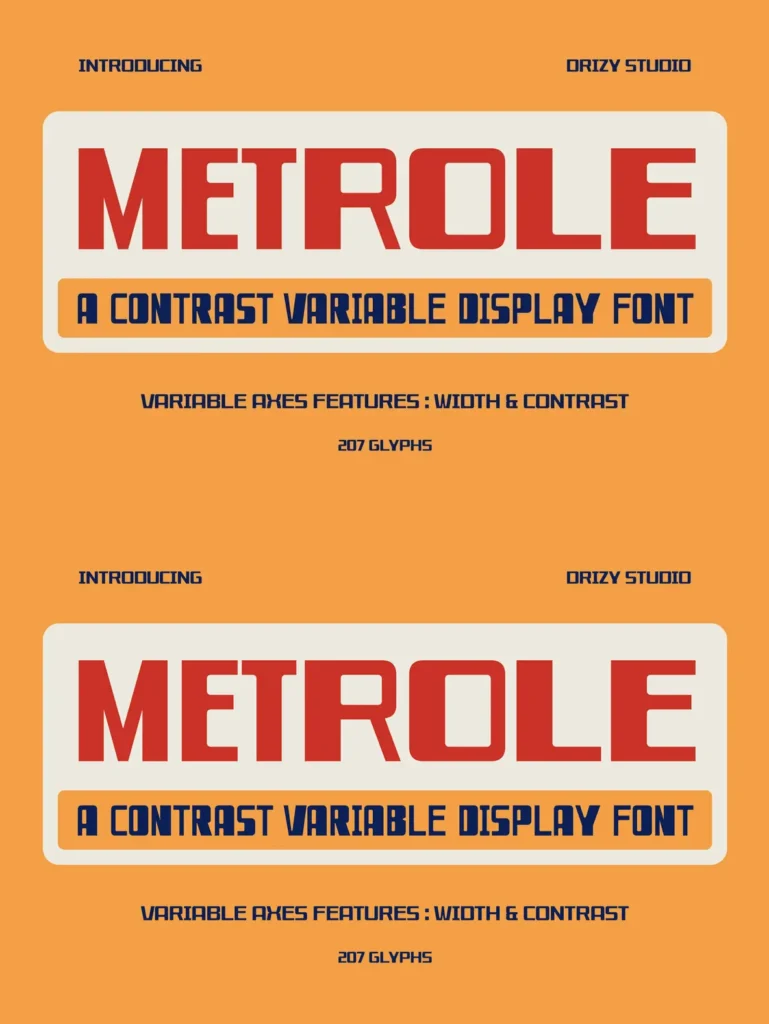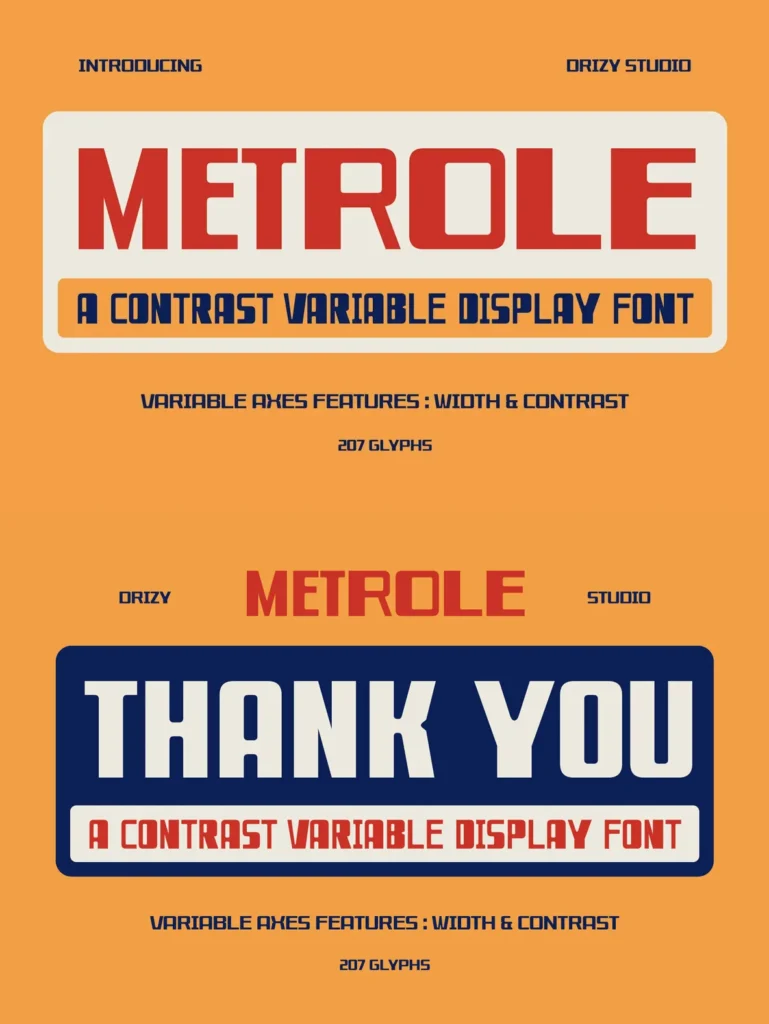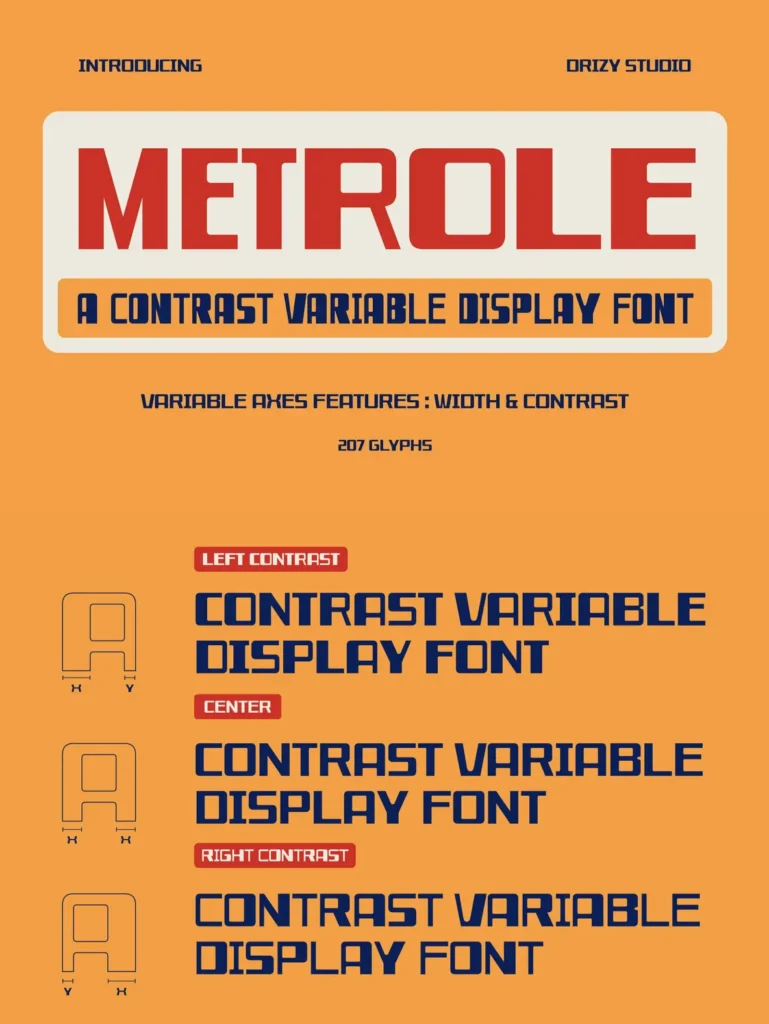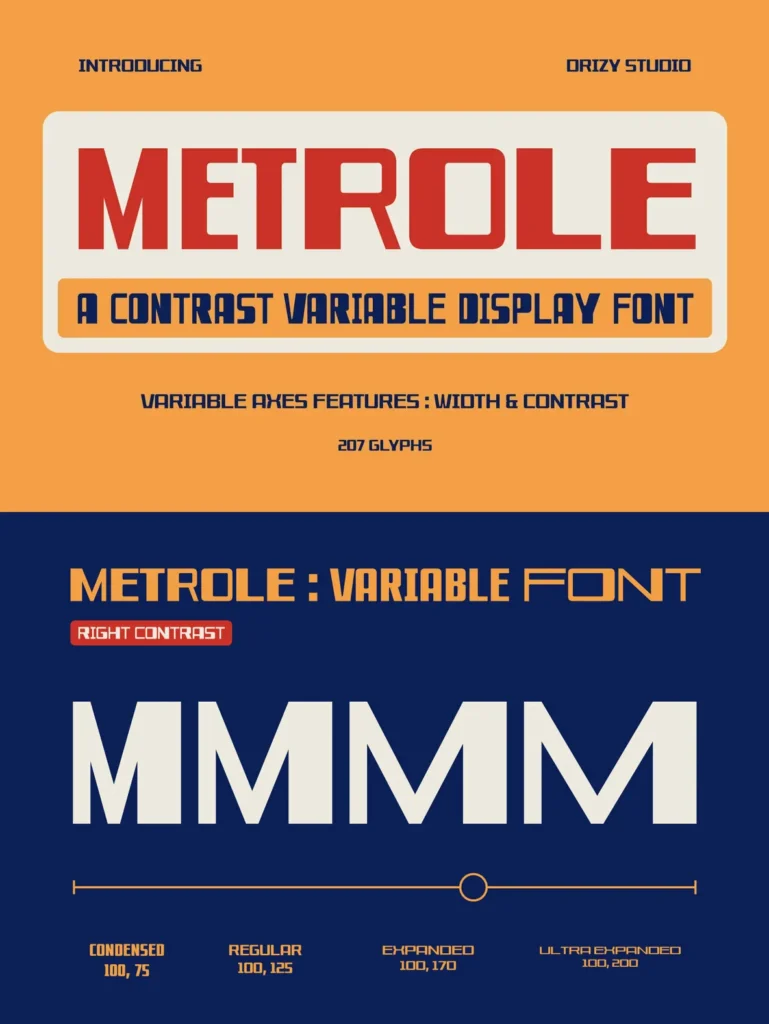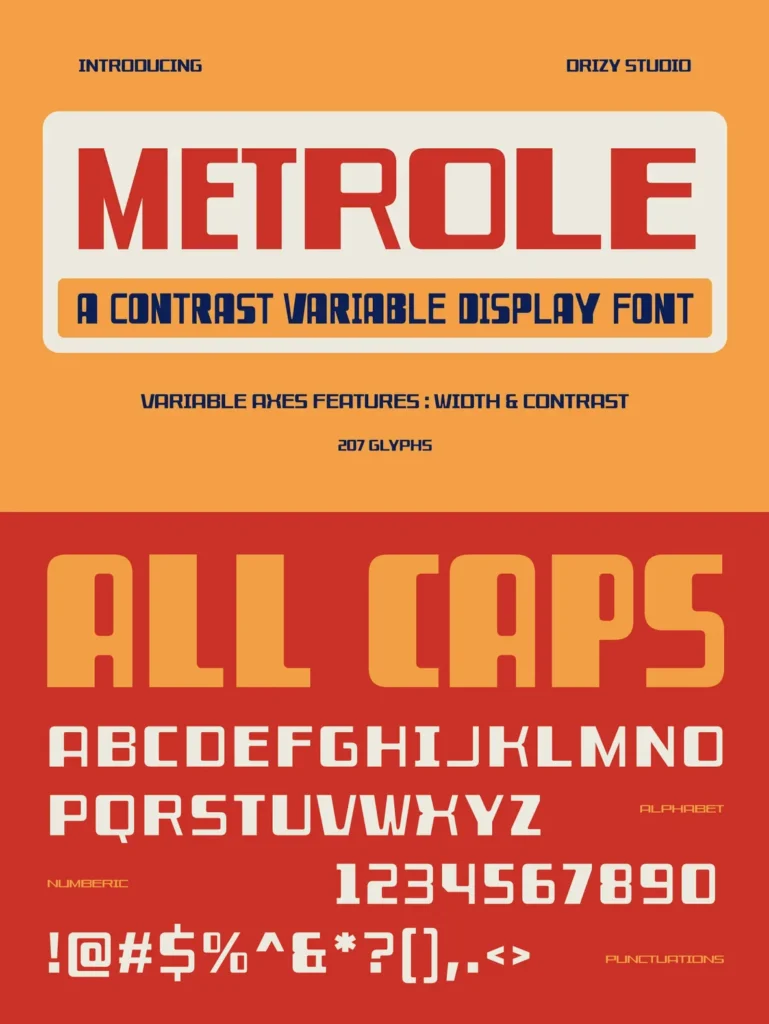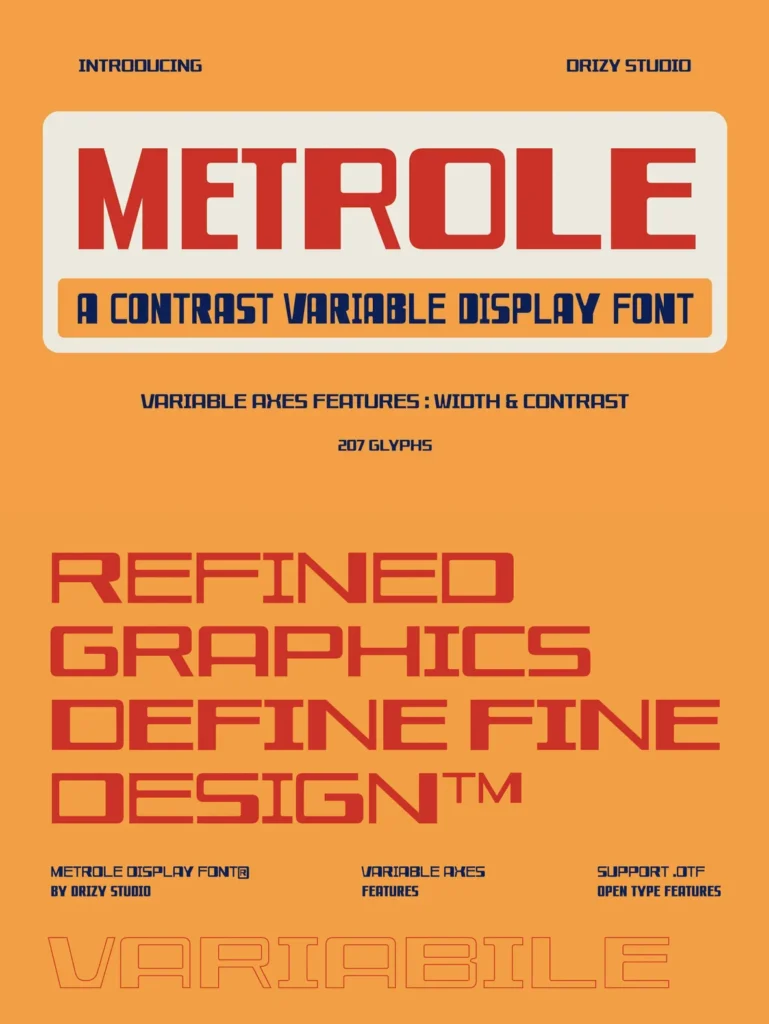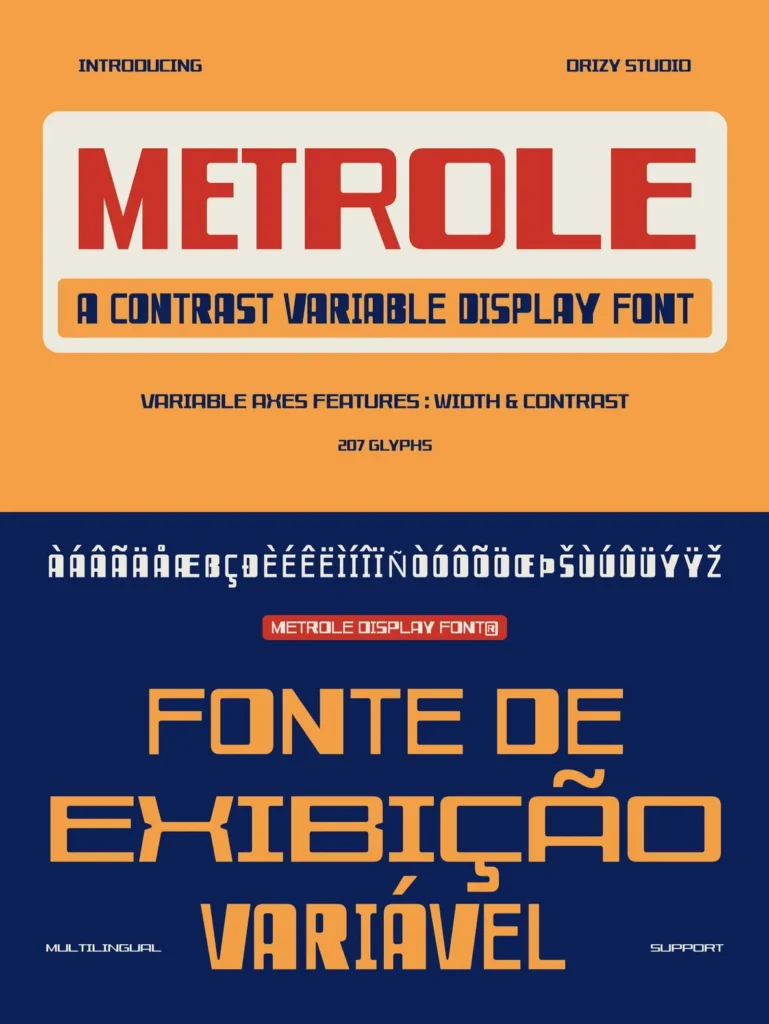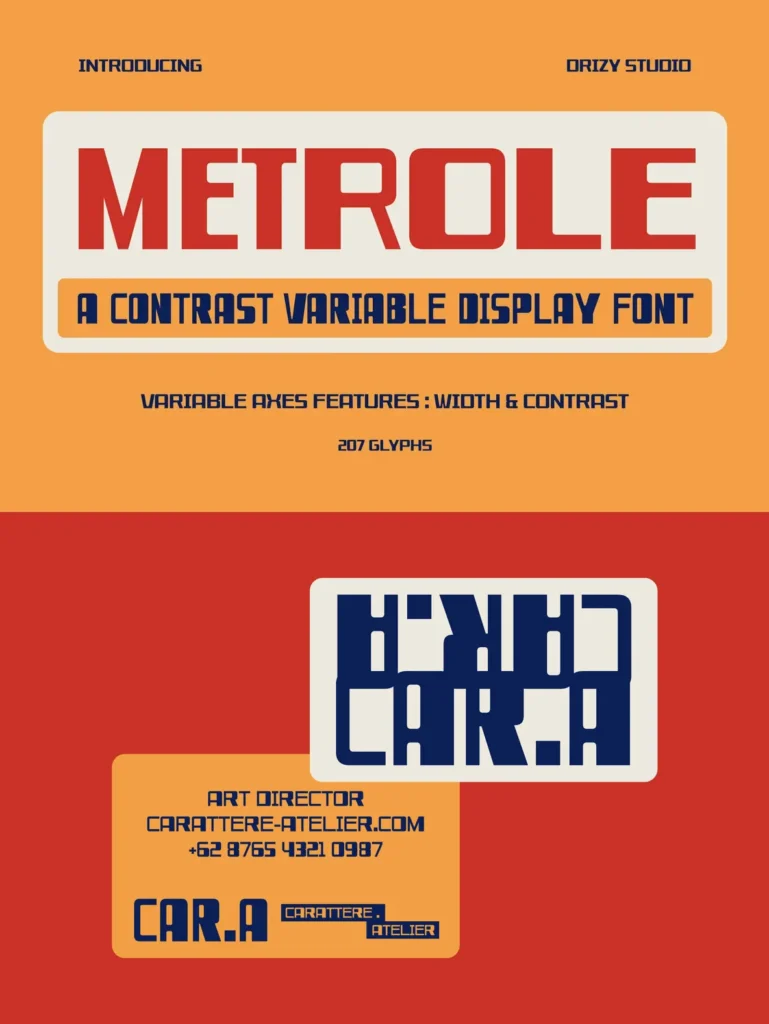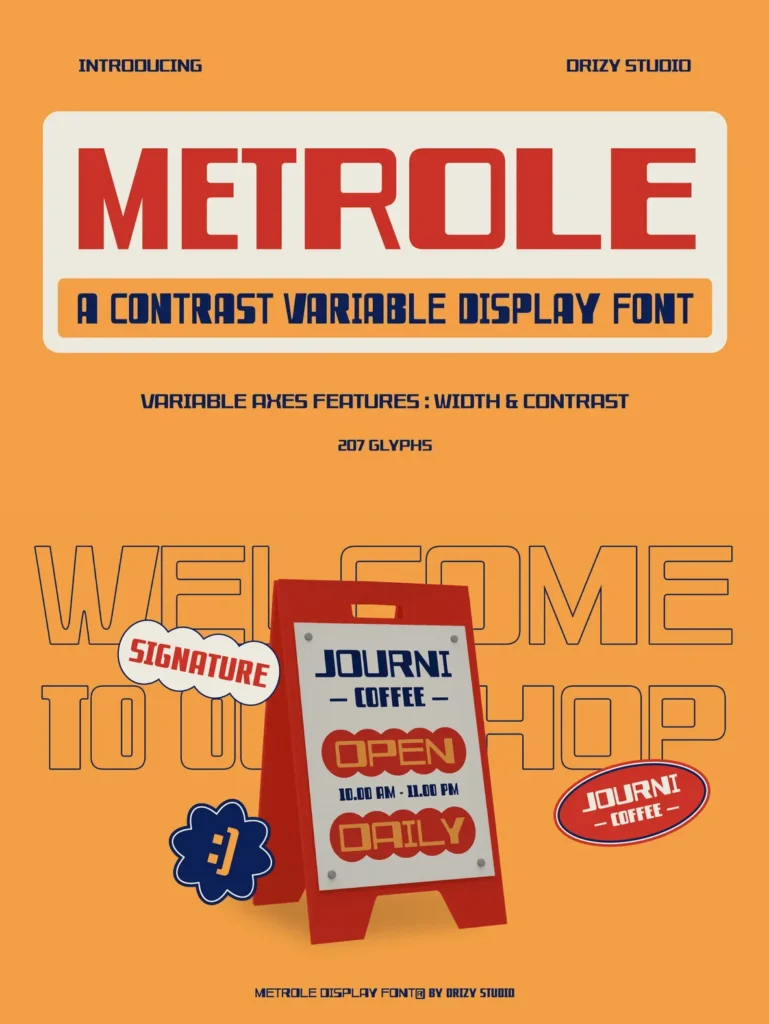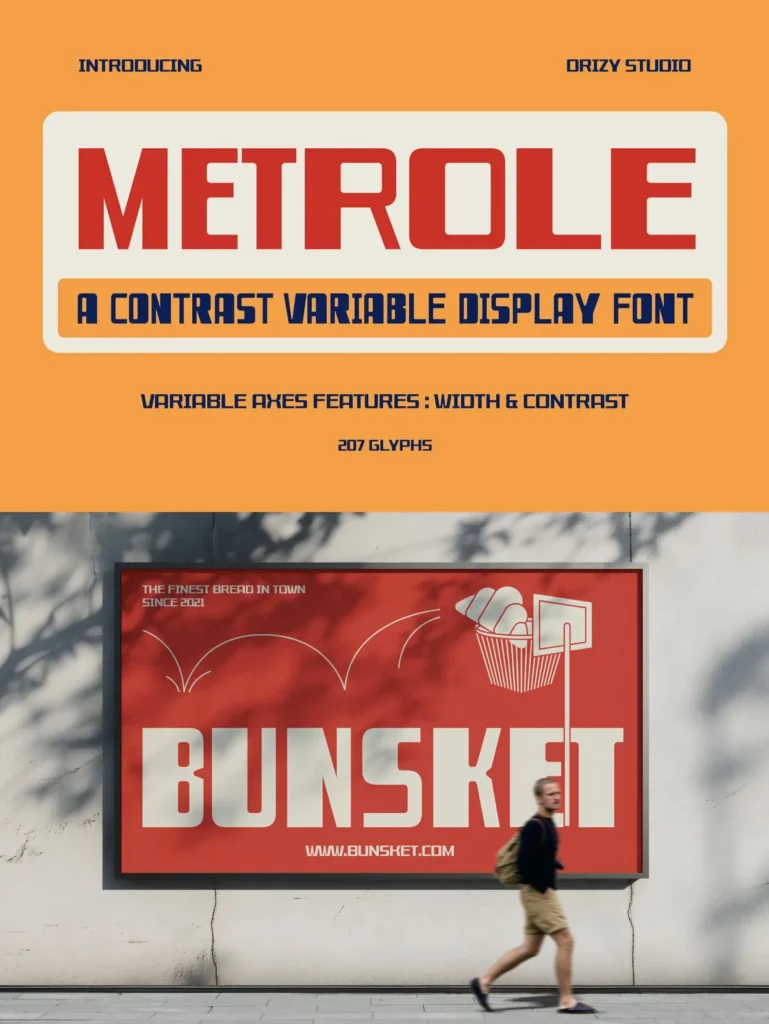
Metrole – Contrast with Poise
Metrole – Contrast Variable Display is a striking fusion of modern elegance and clean simplicity. As part of the Modern Clean Sans Serif style, this display font brings a sleek, contemporary voice to high-impact typography. Its high-contrast aesthetic gives headlines and visual statements a refined sense of sophistication.
Designed for an eye-catching statement or a restrained minimalist touch, Metrole balances clarity with a stylish edge. The variable width and contrast options give designers flexible control while keeping the typeface clean, polished, and direct. It is a strong choice for display settings where modern sans serif structure and expressive contrast need to work together with confidence.
Metrole – Contrast Variable Display Font Features
Character Set (All Caps)
Punctuation & Numbers
Multilingual
Variable: Center, Center Condensed, Center Expanded, Center Ultra Expanded, Condensed, Expanded, Regular, Right, Right Condensed, Right Expanded, Right Ultra Expanded, Ultra Expanded
Variable Axes: Width & Contrast